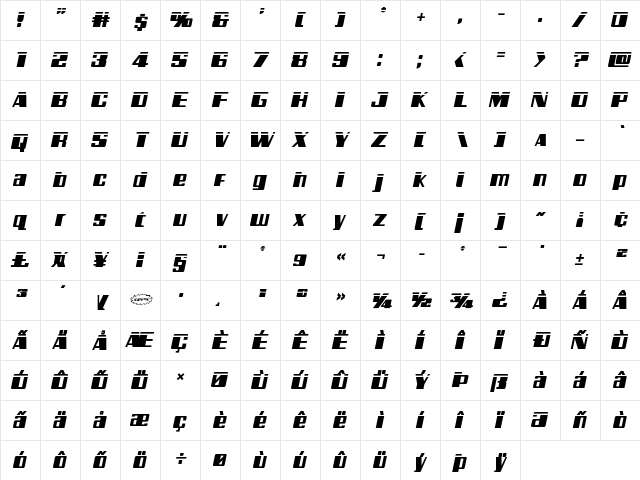
Galactic Storm Laser Italic Italic
Design Context for Galactic Storm Laser Italic Typeface
Galactic Storm Laser Italic is a composed and adaptable typeface that performs quietly and consistently across a wide range of design contexts. The dynamic lean of this cut emphasises speed and emphasis in any layout.
Pro Tip: Try Galactic Storm Laser Italic for annotation and caption copy alongside an upright companion — the contrast in angle creates a dynamic but ordered typographic system.